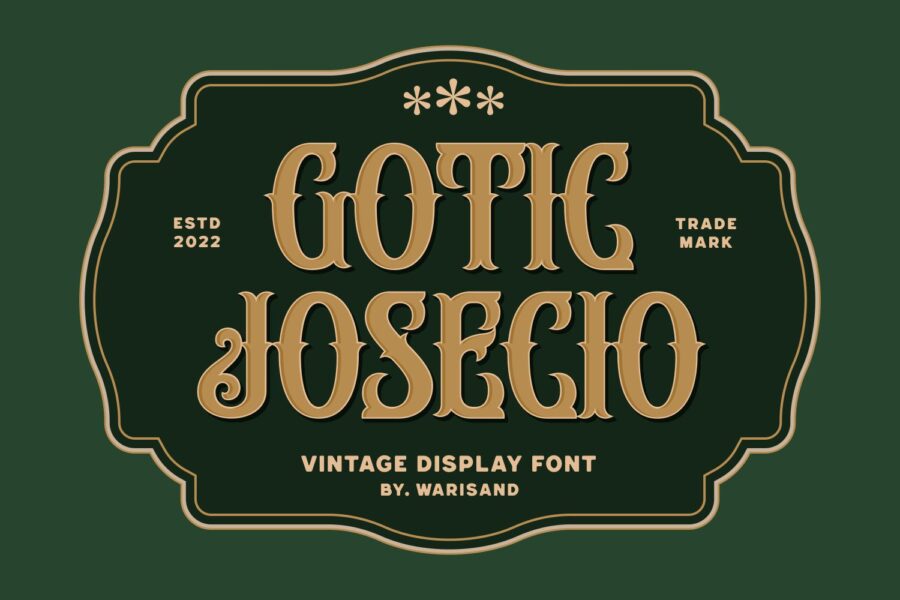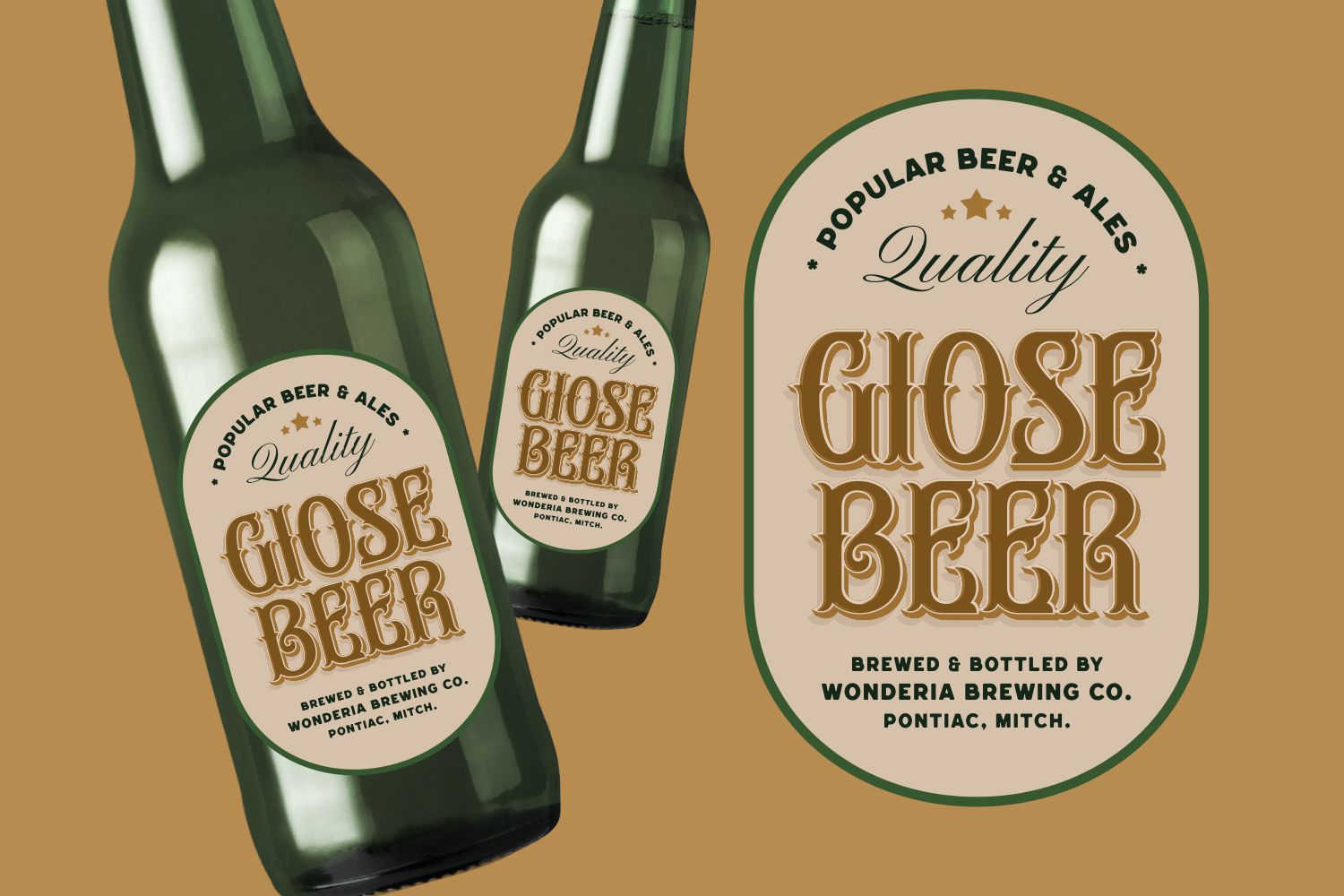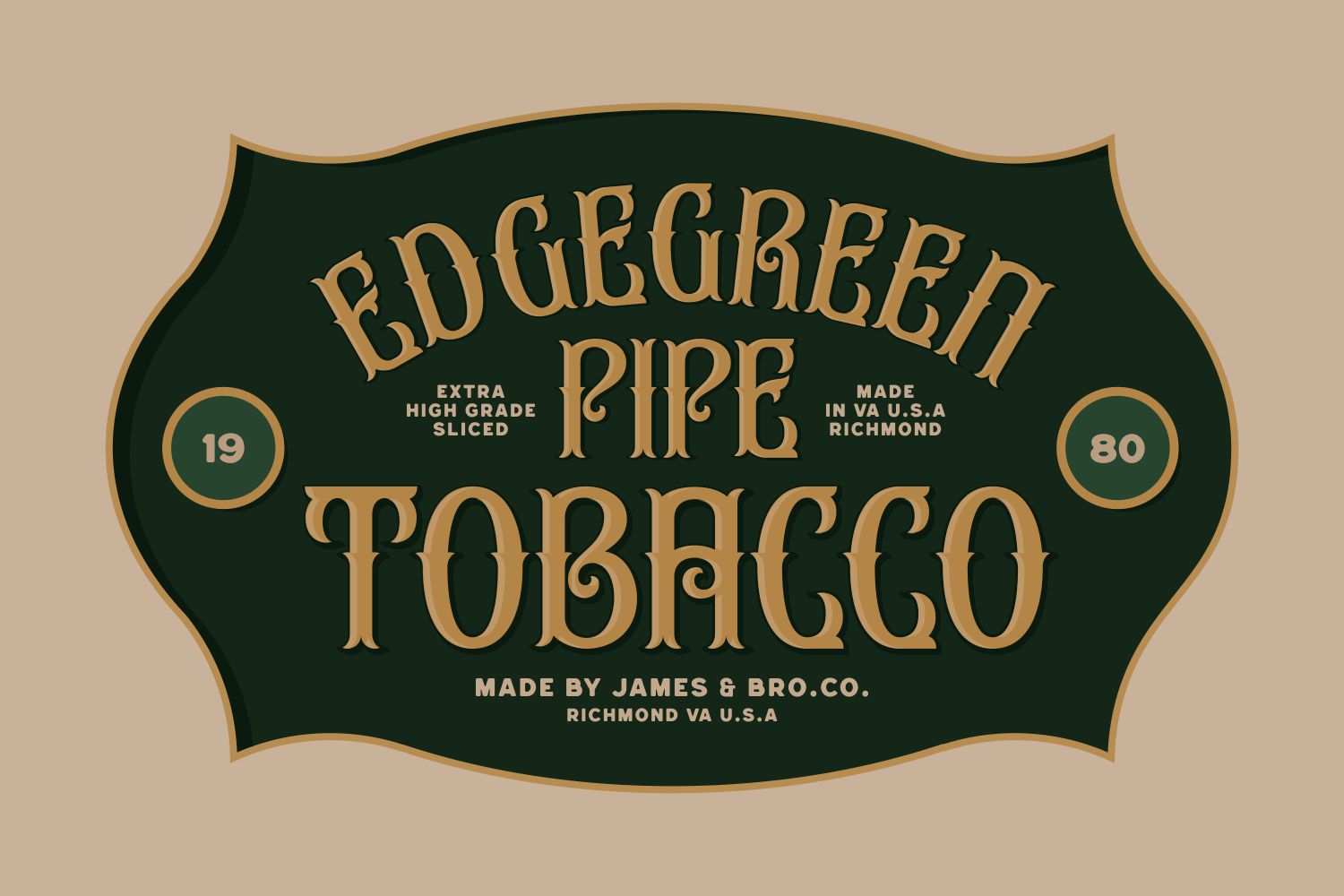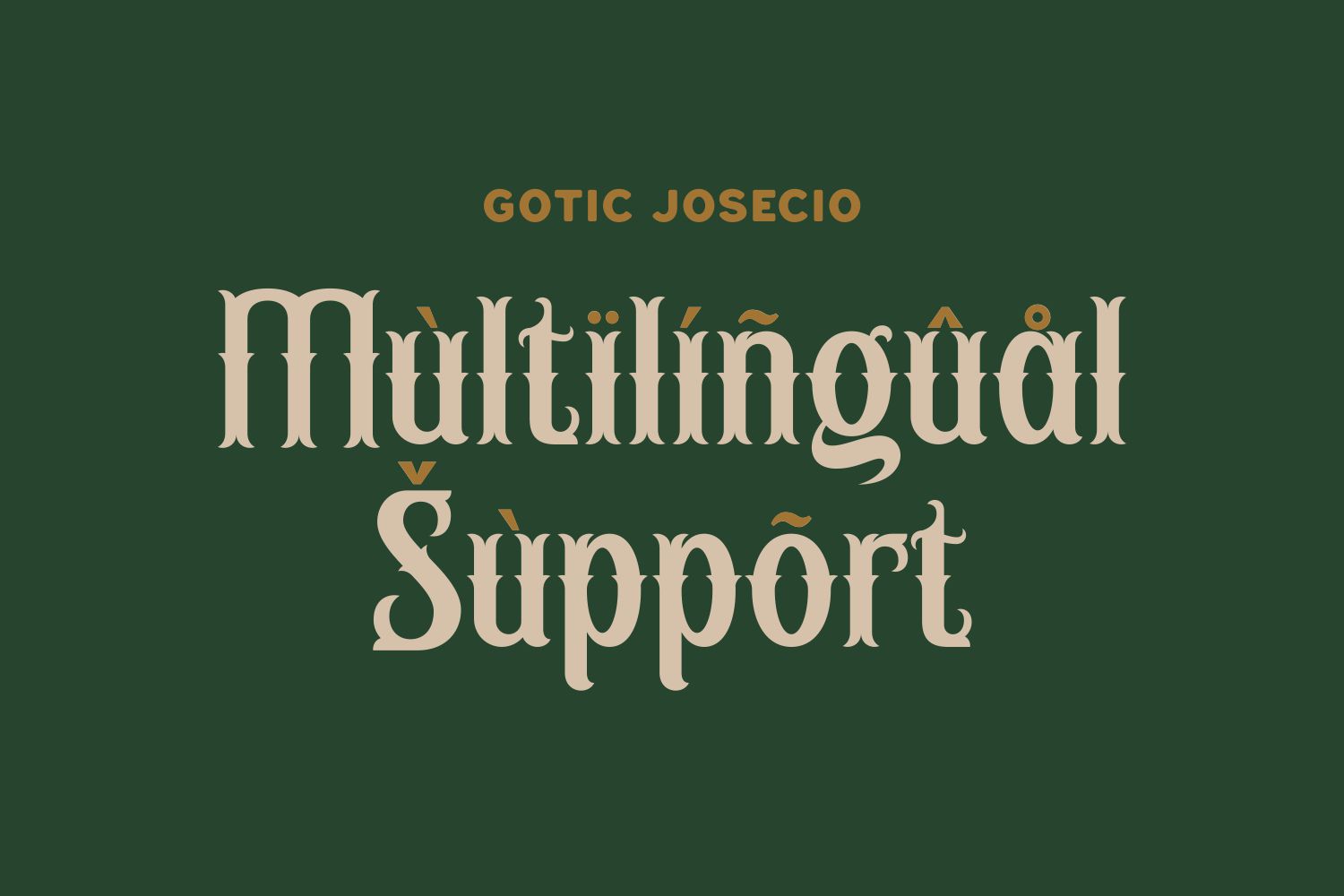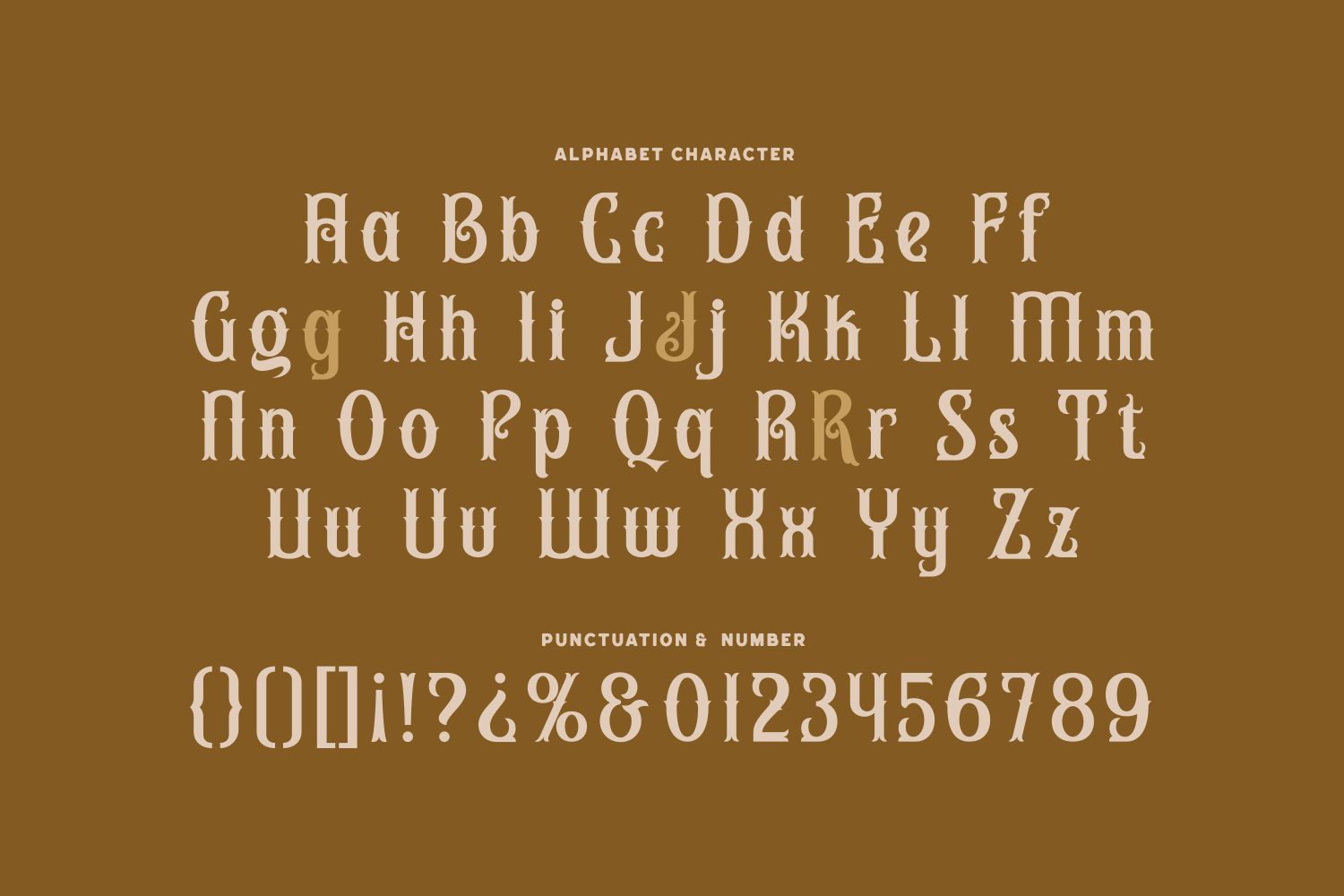
Gotic Josecio
Gotic Josecio is a vintage display font that draws strong inspiration from gothic and Victorian-era typography. With its pointed serifs, dramatic curves, and bold presence, this font brings a rich, old-world aesthetic to modern design. The letterforms are carefully crafted to maintain both legibility and visual flair, making it ideal for logos, alcohol labels, tobacco packaging, and editorial headlines.
This typeface includes multilingual support, punctuations, numbers, and a complete set of uppercase and lowercase characters. Whether you’re designing vintage-style branding or decorative print materials, Gotic Josecio adds a layer of authenticity and nostalgia that captures attention. Its combination of strength and elegance makes it a versatile choice for heritage and craft-inspired projects.